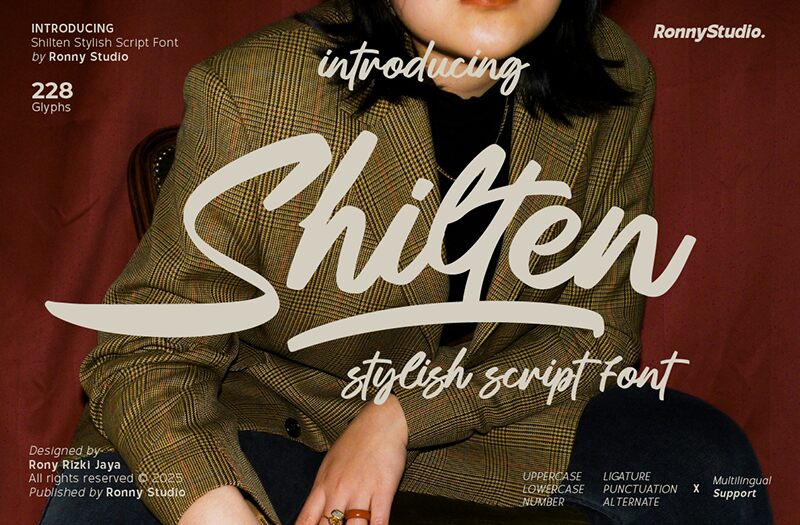
Shilten font by Ronny Studio is a free handwritten font capturing the essence of fluid, dynamic, and elegant script. The characters are expressive and signature-like, incorporating a nostalgic yet modern feel. This font is perfect for contemporary applications and can beautifully transform your projects with its sophisticated touch.
Suitable for branding, invitations, and stationery, Shilten can also enhance logos, product packaging, and promotional materials. It is ideal for greeting cards, social media posts, website designs, magazine layouts, and even clothing prints.